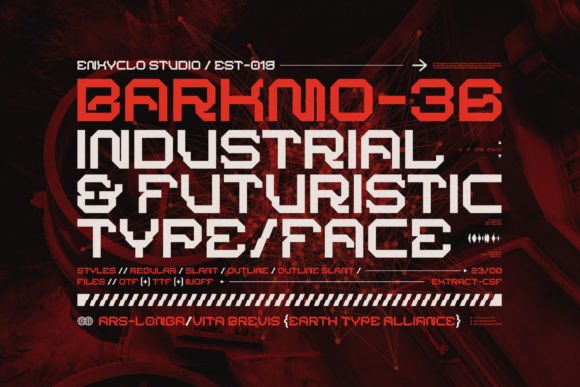
Unleash the Power of Modern Sophistication with Barkmo36 Font: Your Gateway to a Captivating Digital Presence!
Step into the realm of digital expression with Barkmo36 Font, the epitome of modern sophistication and excellence. Crafted to redefine your design endeavors, this captivating display typeface empowers you to leave an unforgettable impression in the world of digital communication. Its bold and alluring character is a symphony of aesthetic brilliance, making it the perfect choice for those seeking to break boundaries and create a lasting impact.
With Barkmo36 Font, you're not just downloading a font; you're embarking on a journey of creative exploration. Its unique style, exuding industrial charm and futuristic allure, ignites your imagination and propels your designs to new heights. From sleek presentations to captivating social media posts, Barkmo36 Font effortlessly elevates every project with its distinctive presence.
Embrace the boundless versatility of Barkmo36 Font, a chameleon of creativity that seamlessly adapts to diverse design landscapes. Whether you're crafting a modern resume that demands attention or seeking to leave a lasting impression through striking logos and branding, Barkmo36 Font rises to the challenge, delivering remarkable results every time.
At the helm of this typographic masterpiece is Enxyclo, a visionary font foundry renowned for pushing the boundaries of creativity. Their passion for excellence shines through in every curve and line of Barkmo36 Font, ensuring that it meets the highest standards of quality and innovation.
Join the ranks of discerning designers who have discovered the transformative power of Barkmo36 Font. Experience the thrill of creating designs that captivate, inspire, and leave a lasting mark. Embrace the future of digital design with Barkmo36 Font, the font that sets you apart from the ordinary and propels you towards greatness.